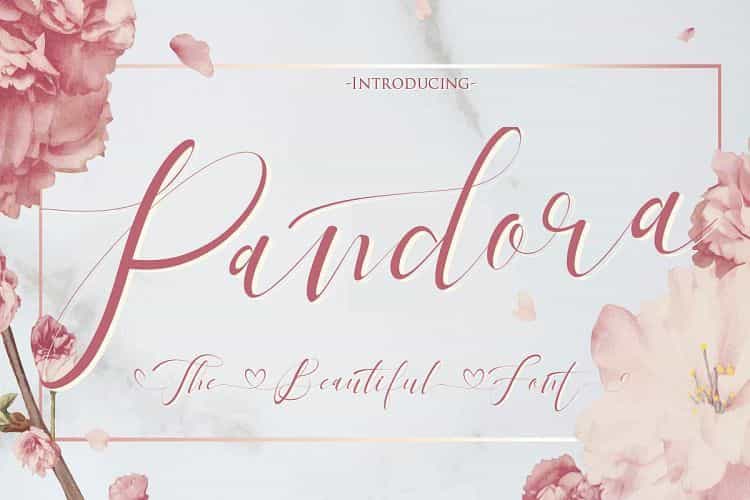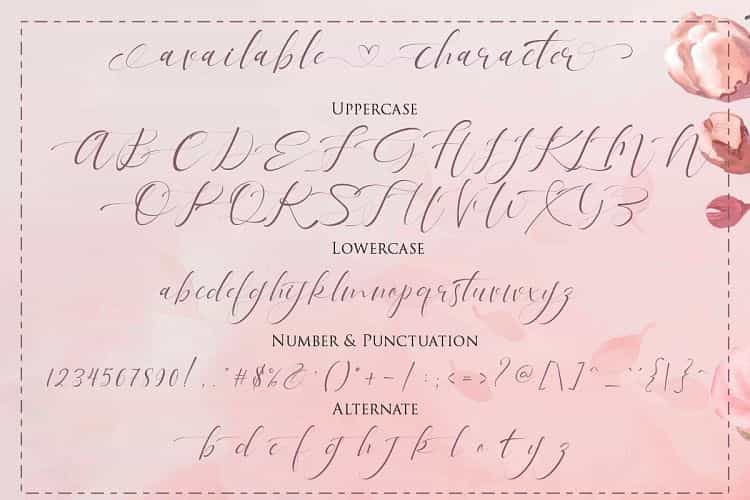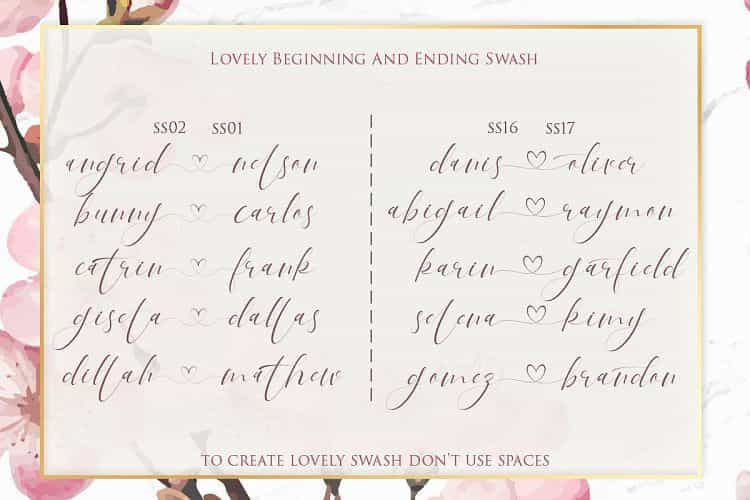
Pandora font is a contemporary calligraphy font with the contemporary handwriting style with multiple types of variants which will help in creating the Instagram quotes, websites, and much more. Created by Gilar Studio, it is the best and unique design that can be used for the project.